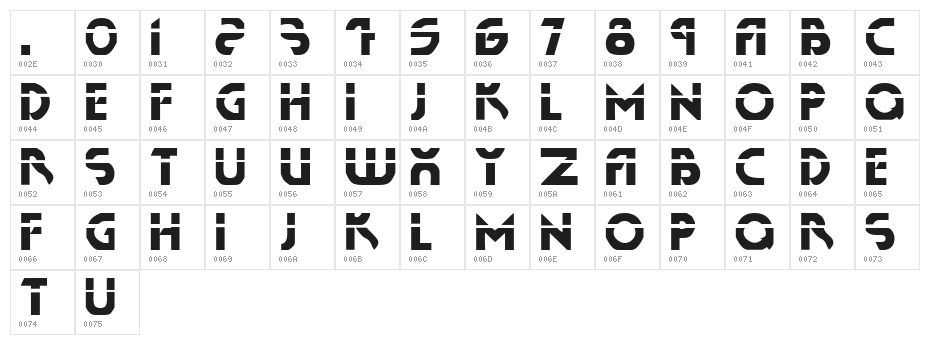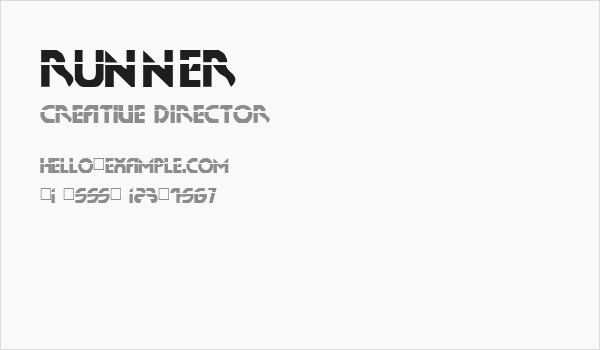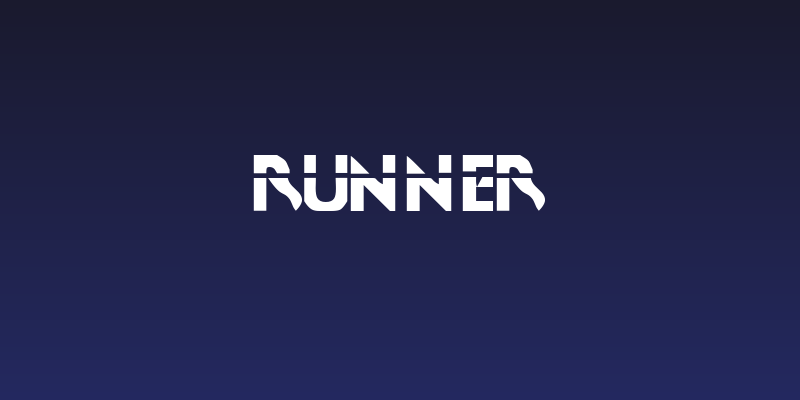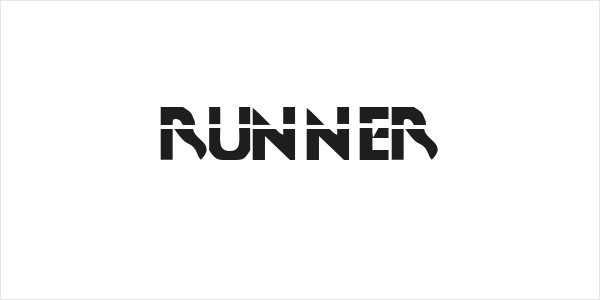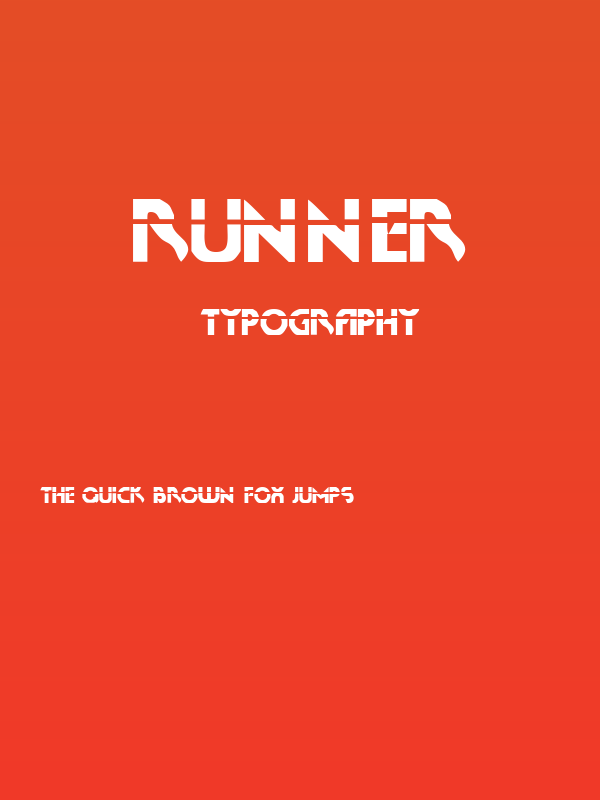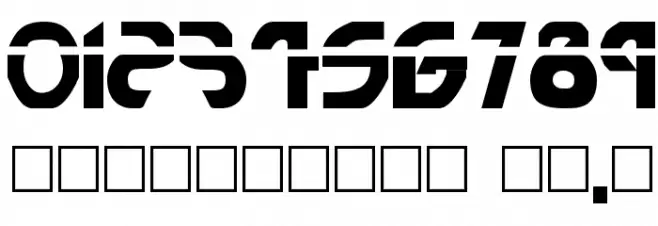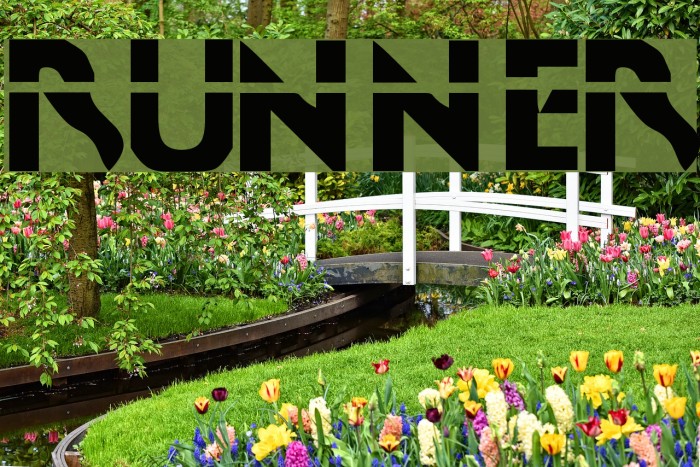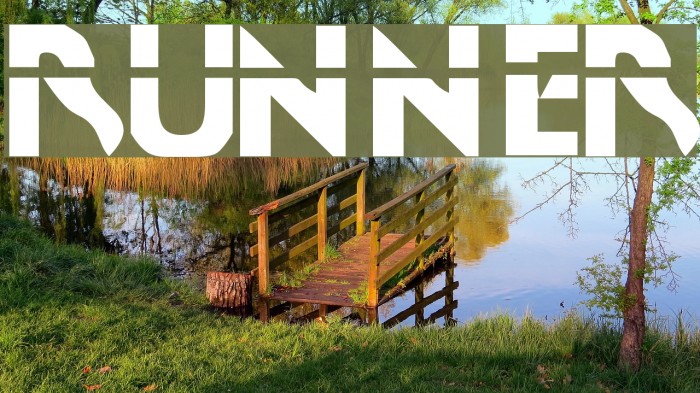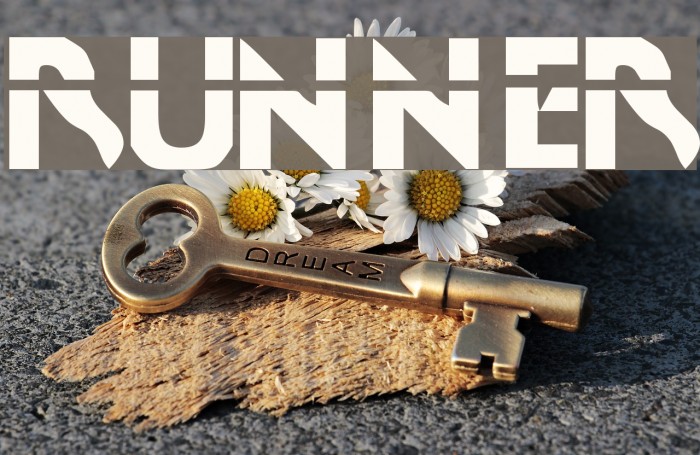
Runner Font
Runner Description
This font features a bold and futuristic design with geometric shapes and sharp angles. The characters are constructed with a combination of solid and cut-out sections, creating a dynamic and modern appearance. The uppercase letters are particularly striking, with a uniform height and consistent width, while the lowercase letters maintain a similar style with slight variations. The numbers follow the same design principles, ensuring a cohesive look across all characters. The special characters are minimalistic, complementing the overall aesthetic. This font is ideal for projects that require a strong and contemporary visual impact.
| Proposed Projects | Ideal for technology branding, sci-fi posters, video game titles, and modern advertising. |